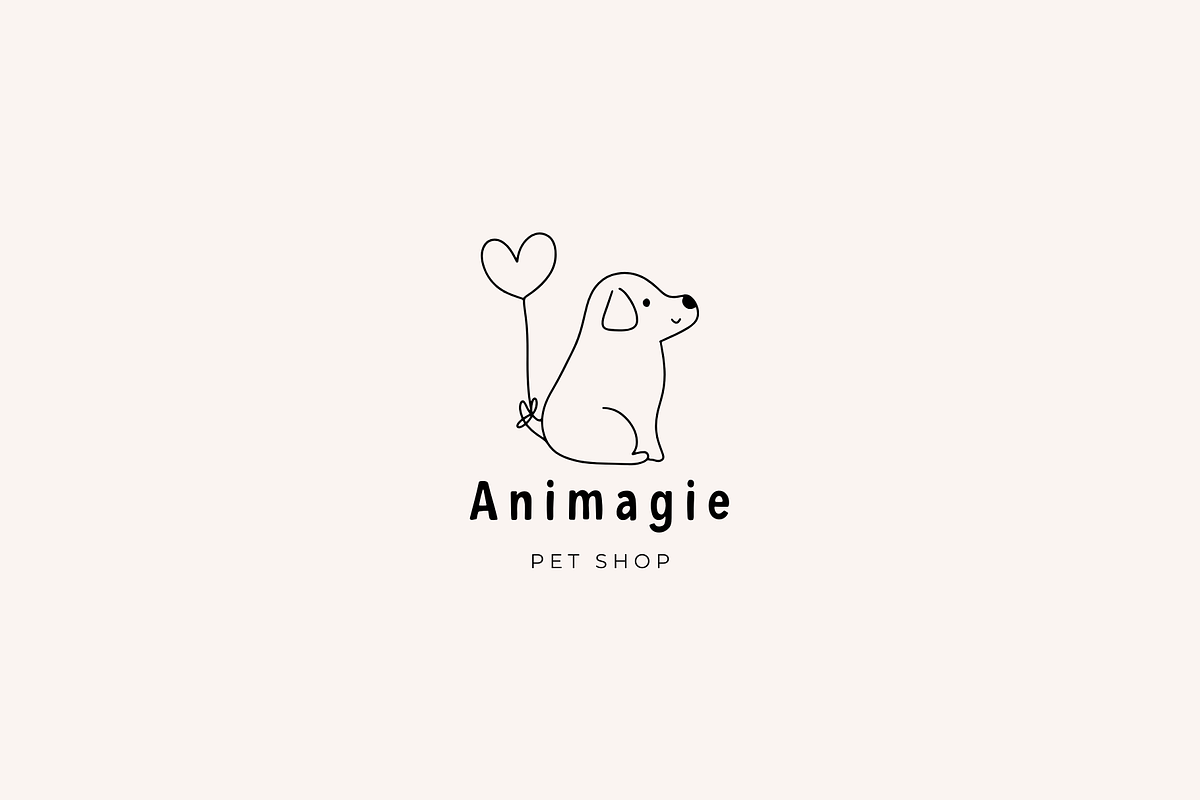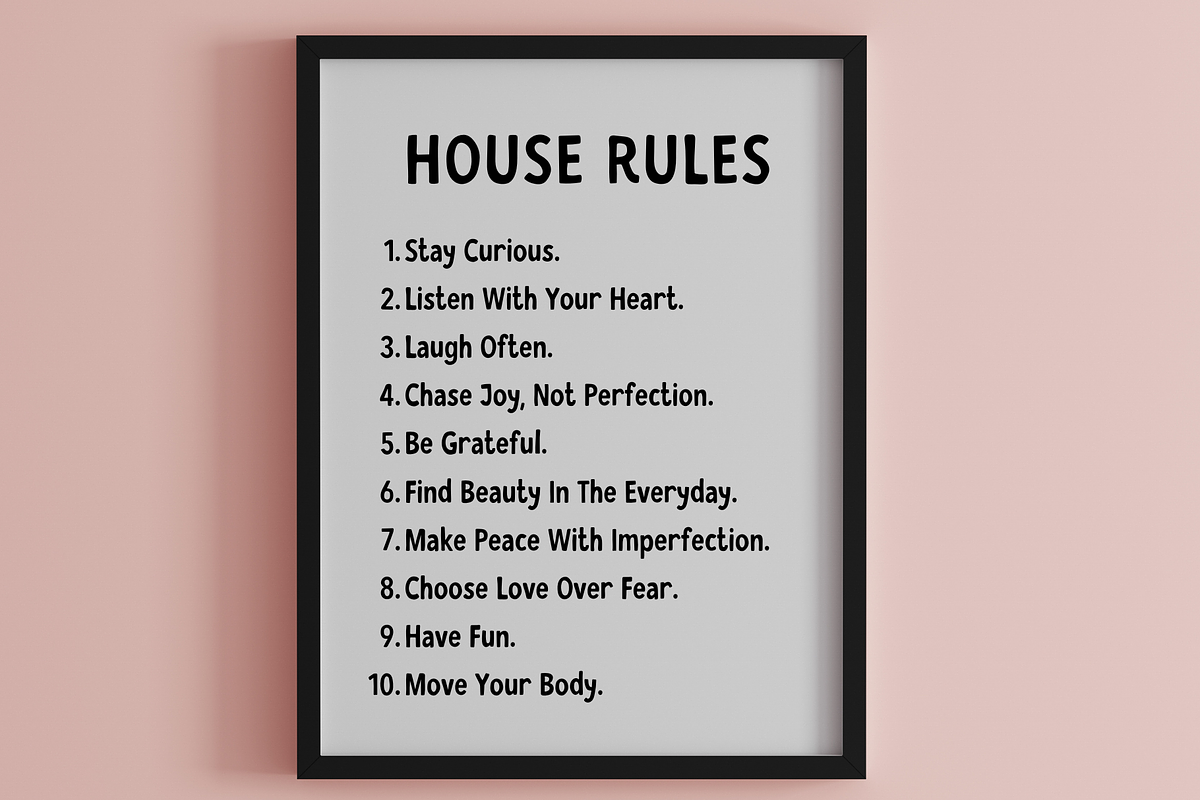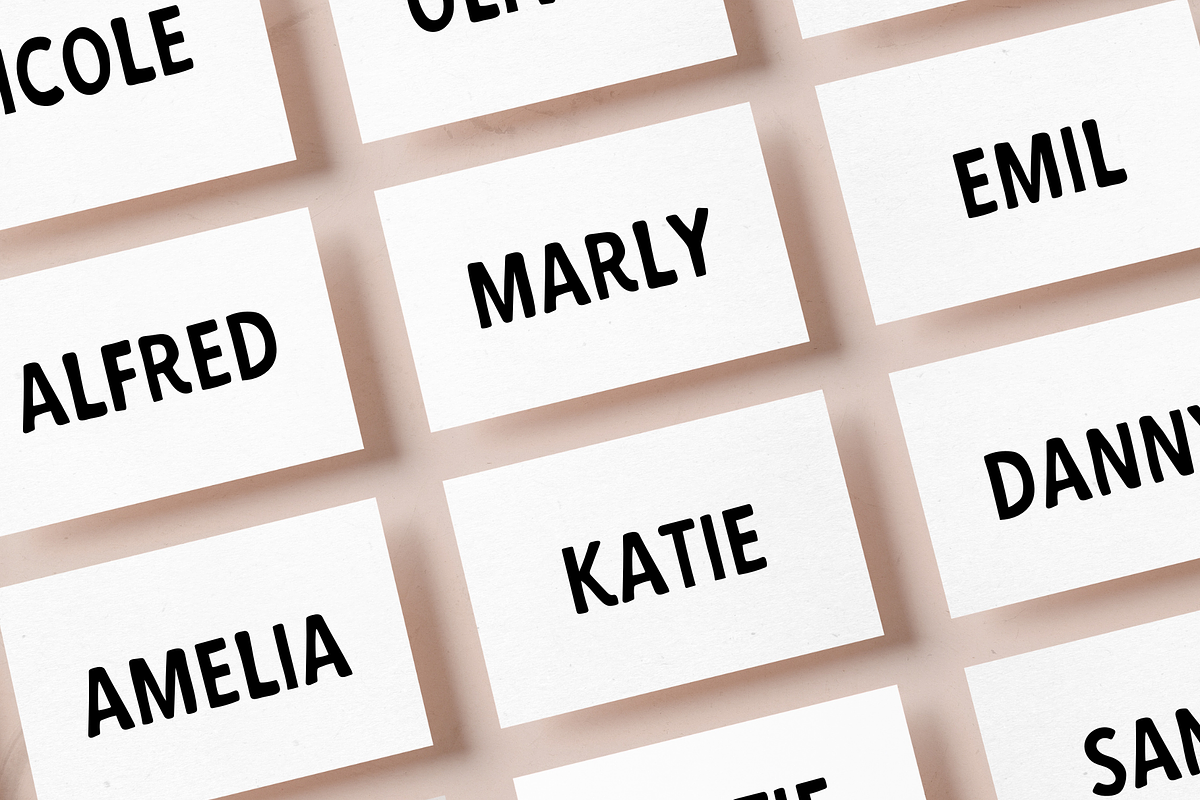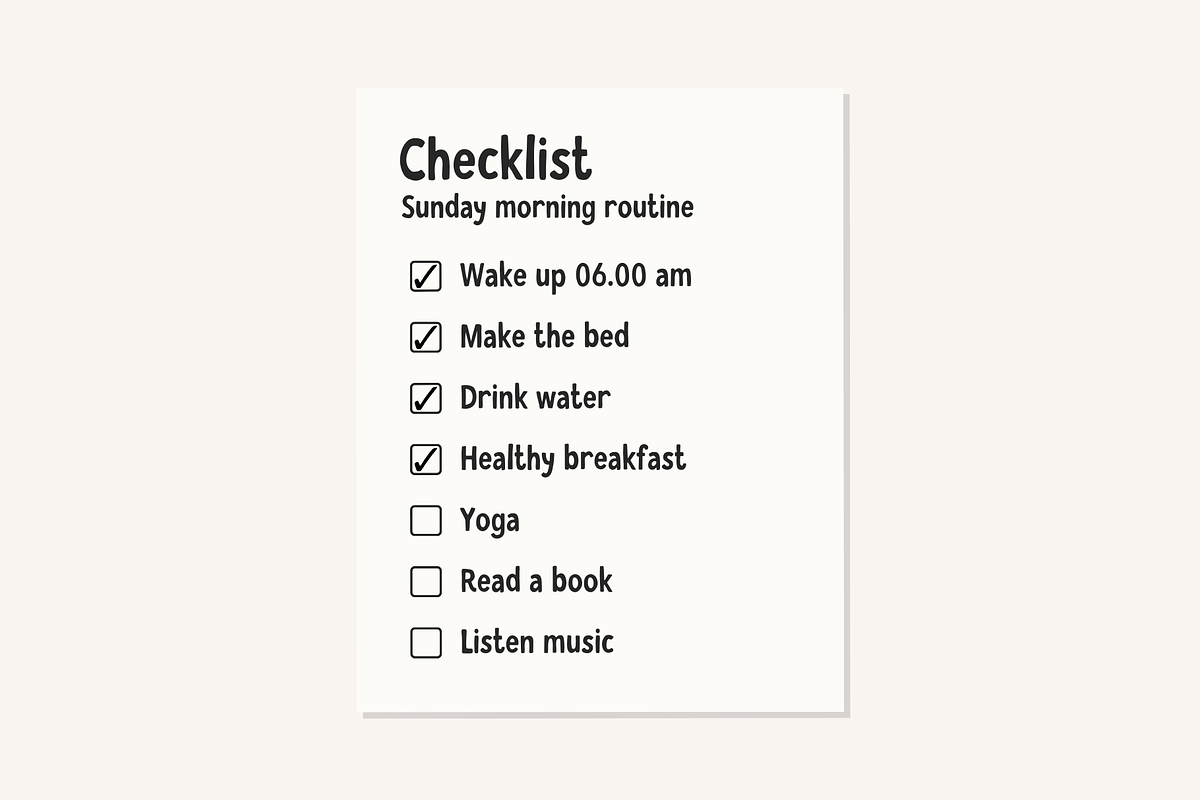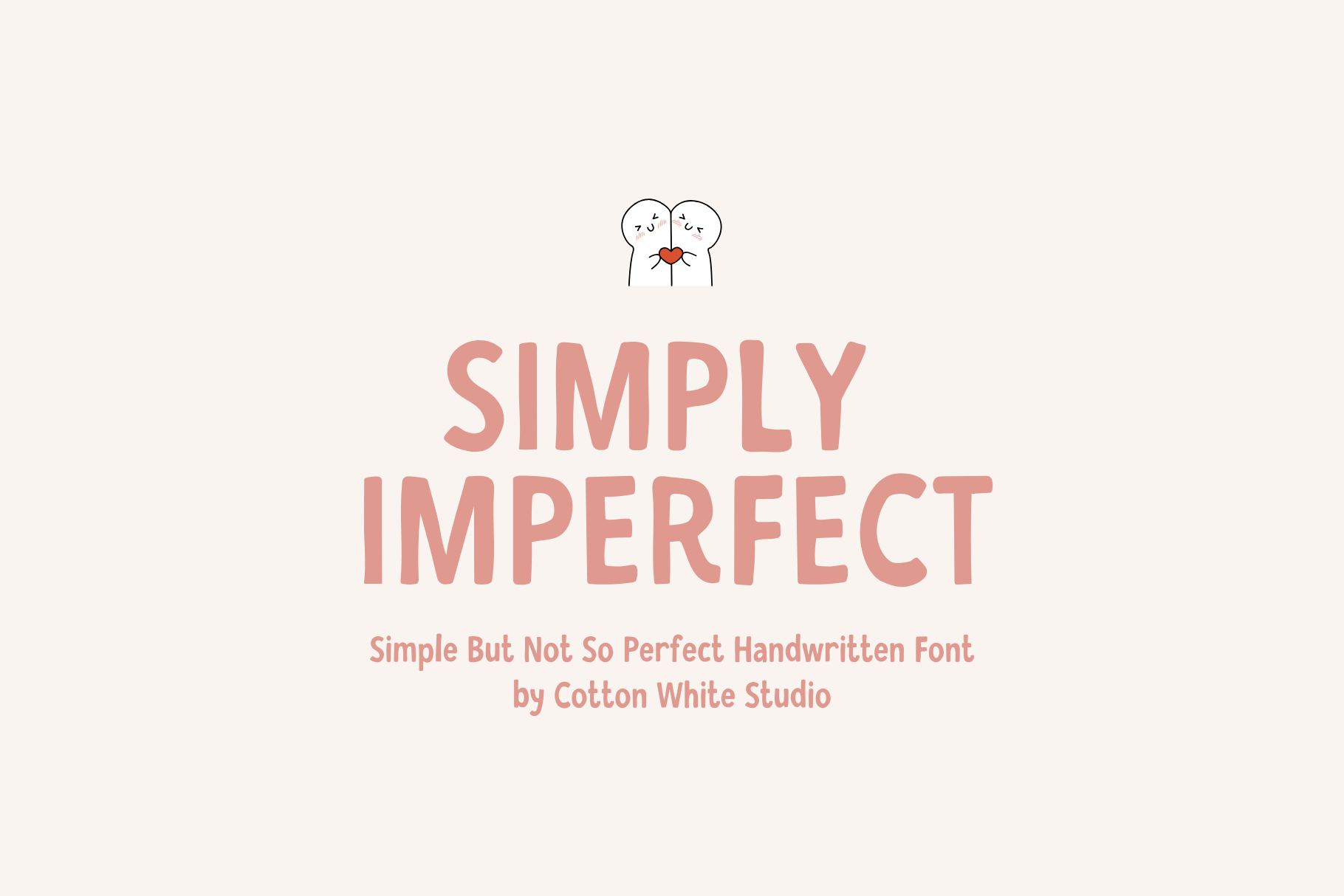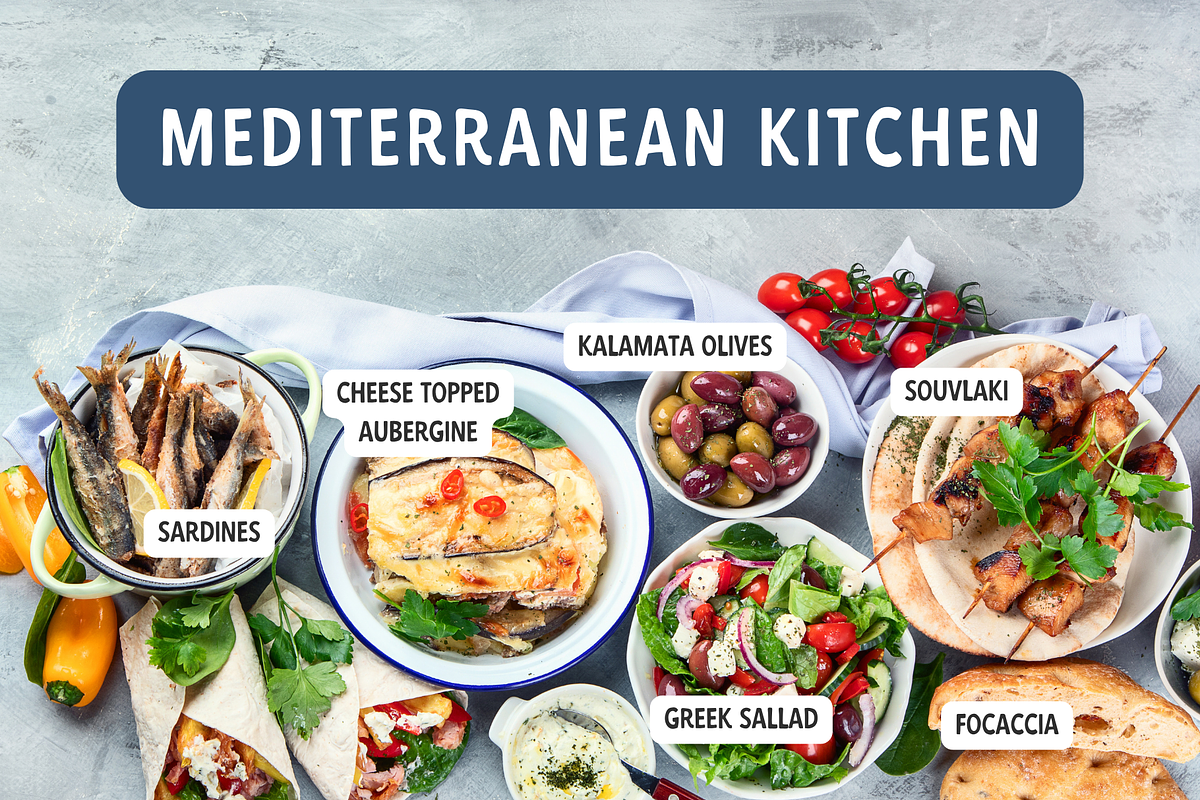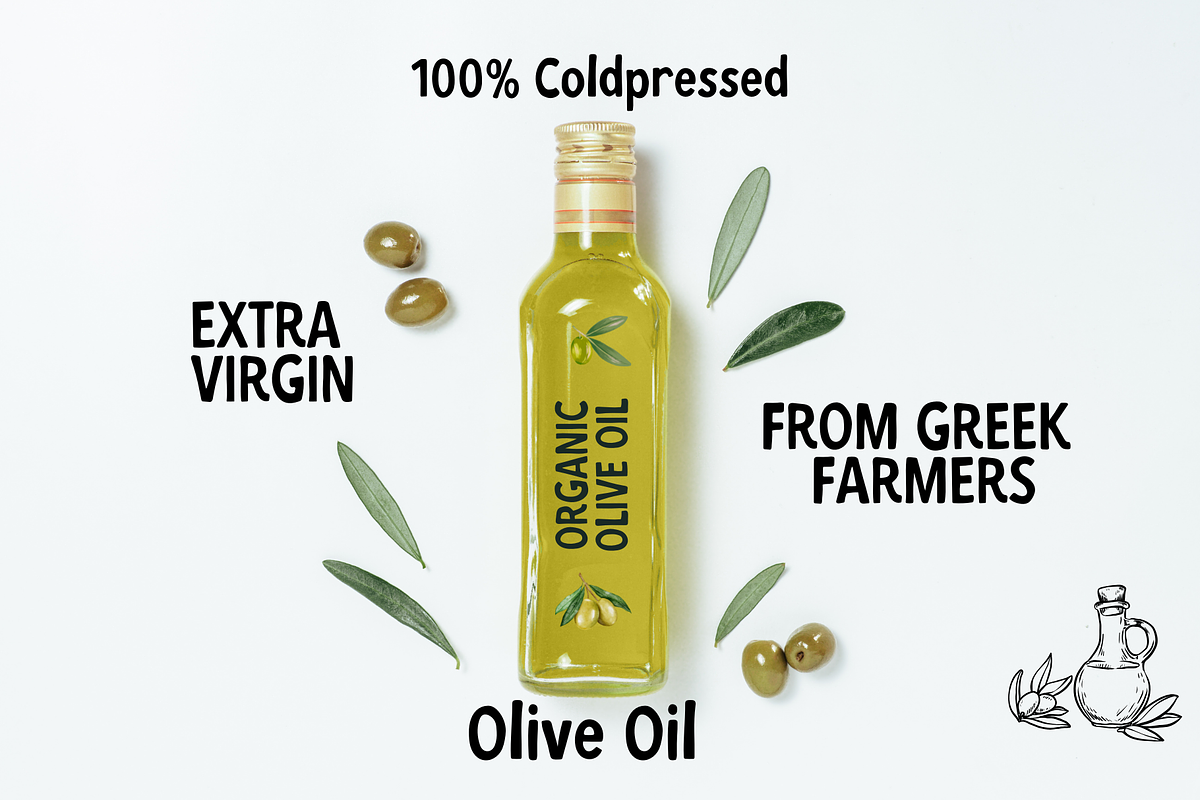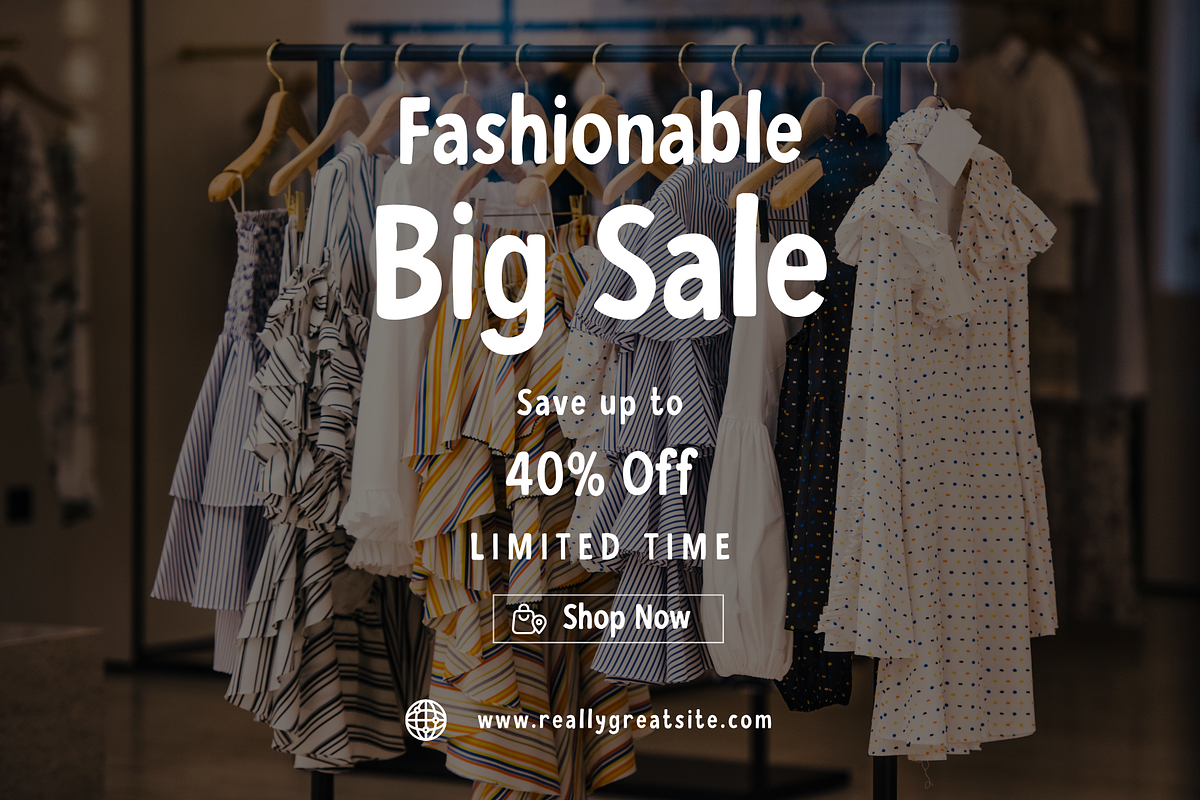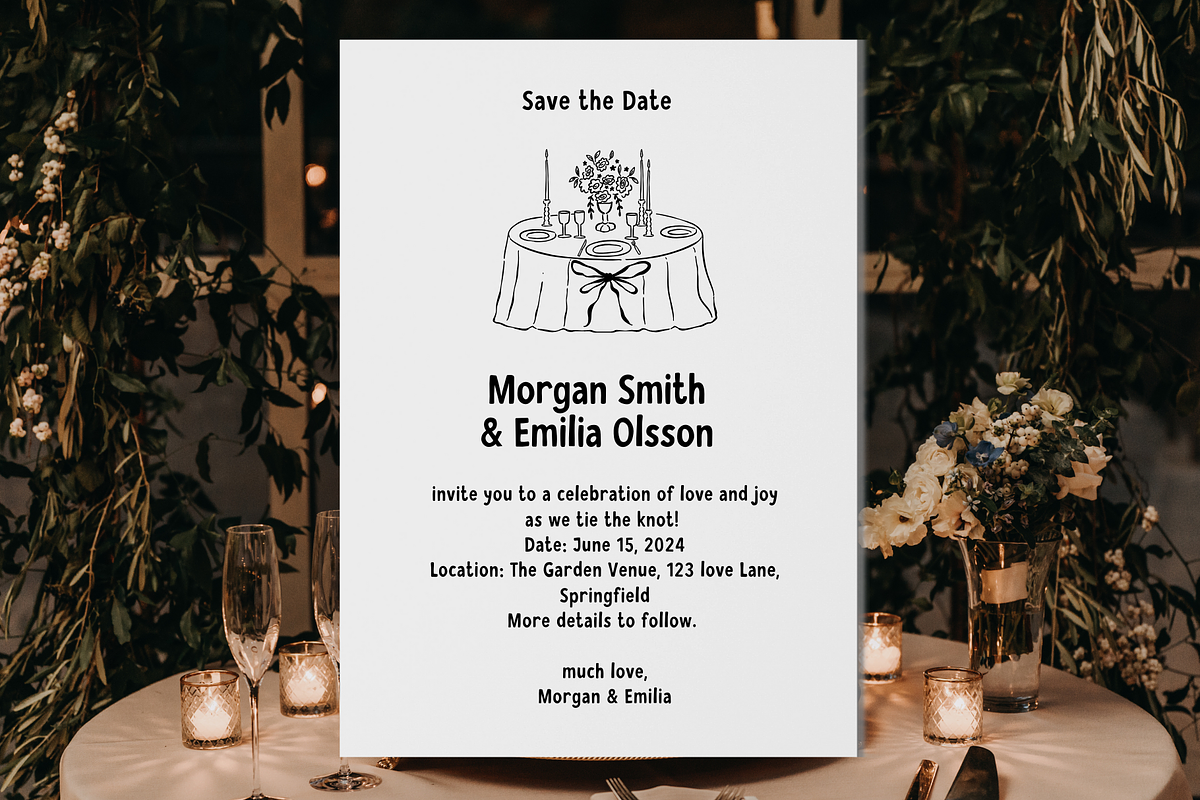
Simply Imperfect Handwritten Font
A rustic, uneven font to jazz up your digital planner, journal, invitations, note-taking, or anything that requires a handwriting and a bit wonky look.